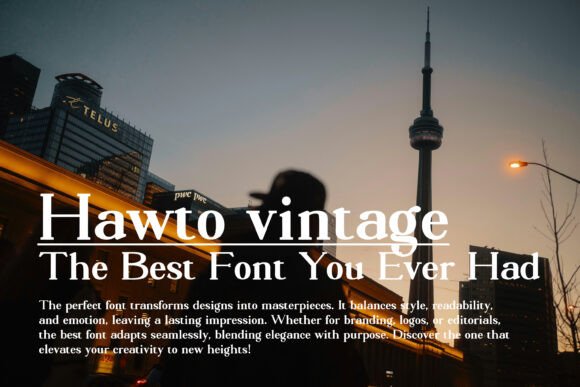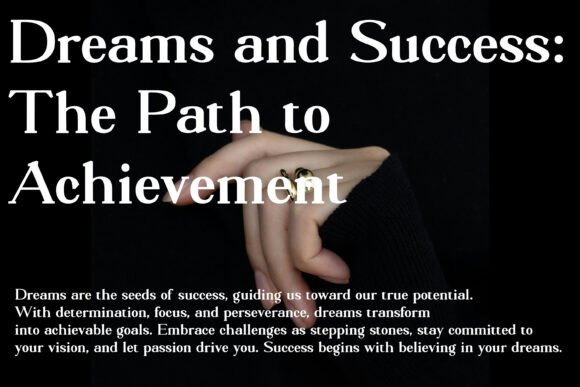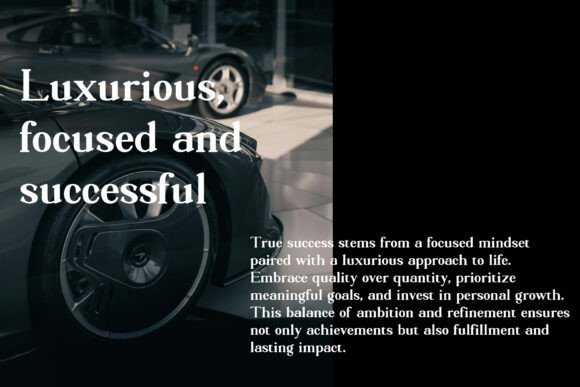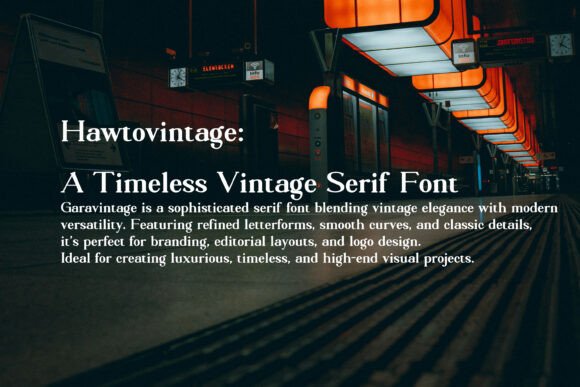
Hawto Vintage Font: Elevate Your Designs with Timeless Elegance
In the world of design, typography plays a crucial role in conveying the tone and aesthetic of a project. For those seeking to infuse their creations with a classic, nostalgic touch, the Hawto Vintage font is an exceptional choice. This elegant serif font is meticulously designed to bring sophistication and timeless appeal to a wide range of design applications.
The Essence of Hawto Vintage
Hawto Vintage is characterized by its well-defined serifs and refined letterforms, which seamlessly blend vintage charm with a modern, professional look. The font’s design is rooted in traditional typography, yet it has been carefully crafted to meet the demands of contemporary design. This balance of classic and modern elements makes Hawto Vintage an incredibly versatile font, suitable for various design projects.
Key Features of Hawto Vintage
- Elegant Serif Design: The font’s serifs are precisely defined, adding a touch of sophistication to any design.
- Refined Letterforms: Each letterform is carefully crafted to ensure a refined and polished appearance.
- Vintage Charm: Hawto Vintage effortlessly captures the essence of classic typography, perfect for designs that require a nostalgic touch.
- Modern Professionalism: Despite its vintage roots, the font maintains a modern and professional look, making it suitable for a wide range of applications.
Applications of Hawto Vintage
The versatility of Hawto Vintage makes it an excellent choice for various design projects, including:
- Logo Design: Create a lasting impression with a logo that exudes elegance and sophistication.
- Branding Materials: Ensure consistency across your brand’s visual identity with a font that communicates professionalism and refinement.
- Product Packaging: Elevate your product’s packaging with a font that adds a touch of classic charm.
- Posters and Flyers: Make a statement with eye-catching posters and flyers that showcase the font’s vintage appeal.
- Digital and Print Media: Whether for digital platforms or print materials, Hawto Vintage adapts seamlessly, ensuring your message is conveyed with style and clarity.
Why Choose Hawto Vintage?
In a sea of modern sans-serif fonts, Hawto Vintage stands out for its unique blend of classic elegance and contemporary professionalism. Here are a few reasons why designers and crafters should consider Hawto Vintage for their projects:
- Timeless Appeal: The font’s classic design ensures it will remain relevant and stylish for years to come.
- Versatility: From logos to long-form content, Hawto Vintage performs exceptionally well across different applications.
- Easy to Read: The well-defined serifs and refined letterforms enhance readability, making it suitable for both headings and body text.
- Unique Aesthetic: The font’s distinctive vintage charm sets it apart from more common design choices, allowing designers to create truly unique works.
Hawto Vintage is more than just a font; it’s a design tool that can elevate your creations with its timeless elegance and sophisticated charm. Whether you’re a professional designer working on a client’s project or a crafter bringing your own ideas to life, Hawto Vintage offers the perfect blend of vintage appeal and modern professionalism. By incorporating this elegant serif font into your designs, you’re not just choosing a typeface; you’re embracing a design philosophy that values beauty, readability, and the power of typography to connect and inspire.